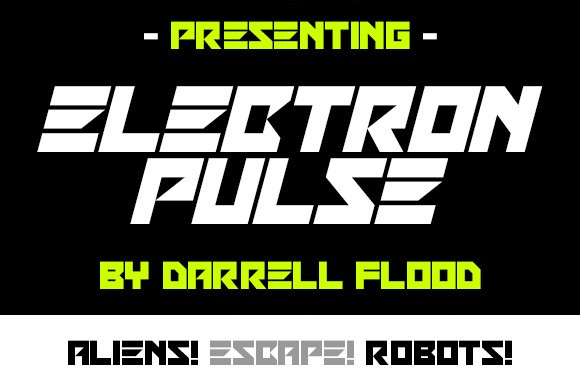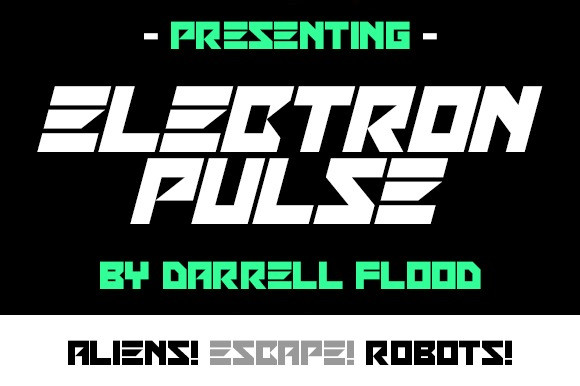
Electron Pulse Font
Electronic Pulse Display Font, An edgy futuristic font in an angular, high-tech style. Perfect for space adventures, science themes and general modern use!